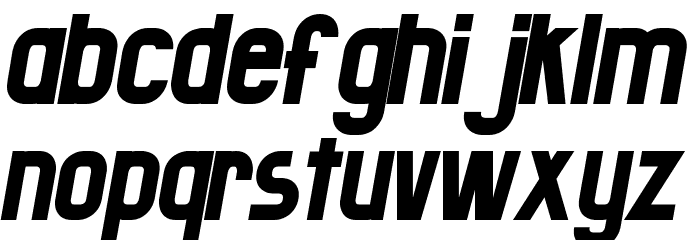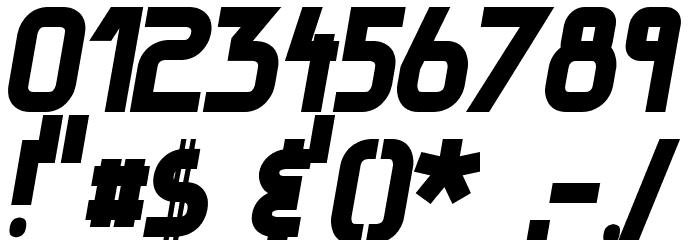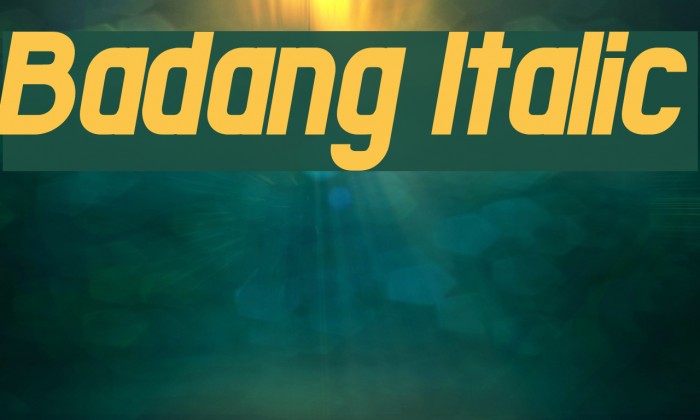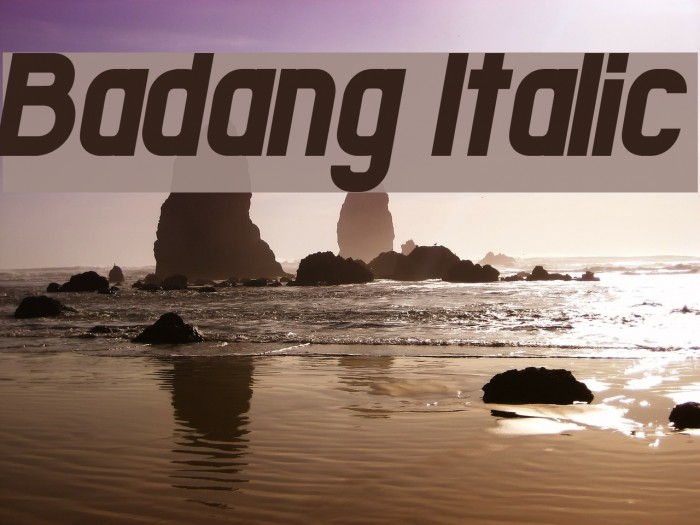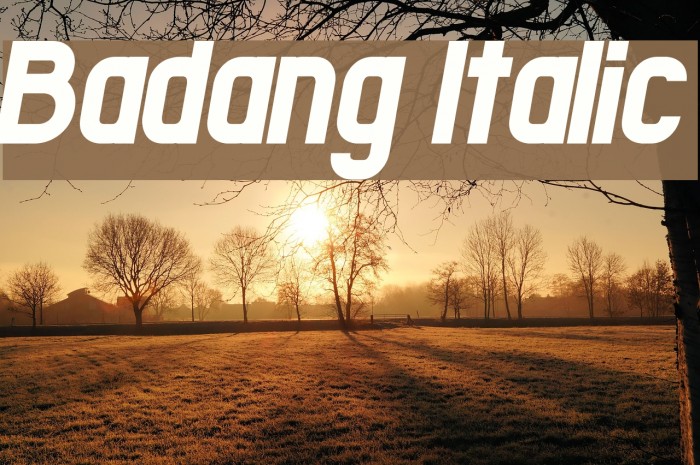
Badang Italic Font
This font features a bold and dynamic style with a distinct italic slant, giving it a sense of motion and energy. The characters are robust and slightly condensed, which enhances their impactful appearance. The strokes are consistent in weight, providing a uniform look across all characters. The uppercase and lowercase letters maintain a cohesive design, while the numerals and special characters complement the overall aesthetic. This font is well-suited for projects that require a strong and modern presence.
A bold, italic font with a dynamic and modern style.
- Proposed Projects: Ideal for sports branding, dynamic posters, modern advertising, and any project needing a bold statement.